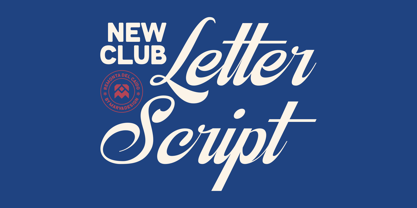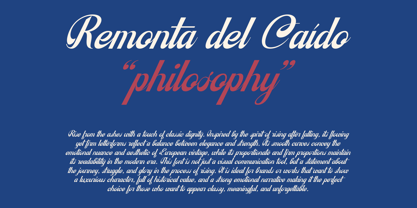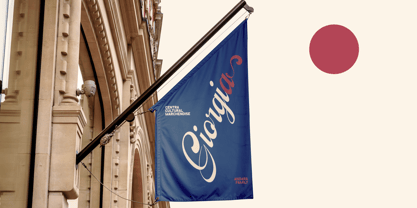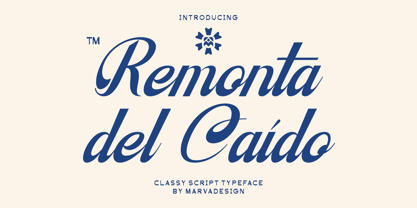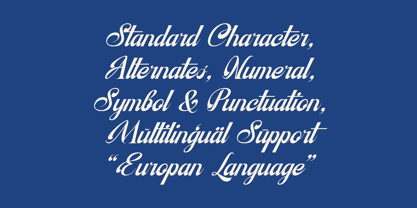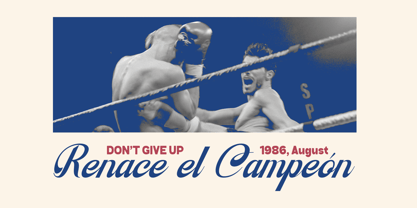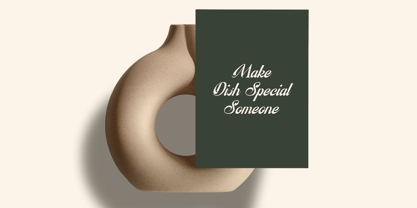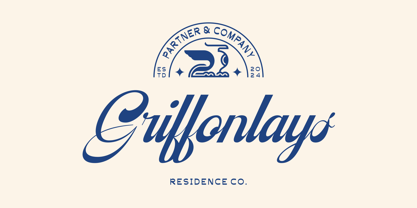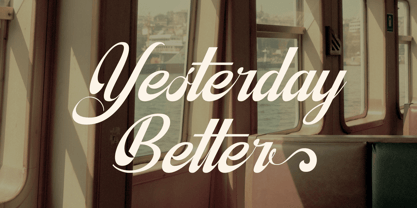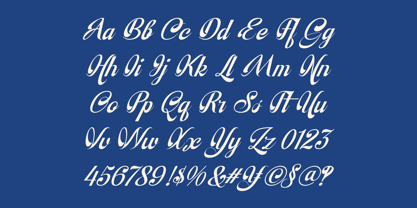
Remonta Del Caido
von Marvadesign
Die Schriftfamilie Remonta Del Caido wurde von Febrie Setiawan entworfen und von Marvadesign veröffentlicht. Remonta Del Caido enthält 1 Stile. Mehr über diese Familie
Remonta del Caído is a refined script typeface that combines classical elegance with bold expression. Its flowing yet disciplined letterforms evoke the grace of European vintage aesthetics while maintaining strong structural integrity, making it highly legible across modern design contexts. Designed with both beauty and purpose, this typeface symbolizes resilience and dignity—rising after a fall. It includes a comprehensive set of standard characters, alternates, numerals, symbols, and multilingual support, making it suitable for a wide range of applications from branding and editorial design to luxury packaging. With its timeless curves and expressive personality
Designer: Febrie Setiawan
Foundry: Marvadesign